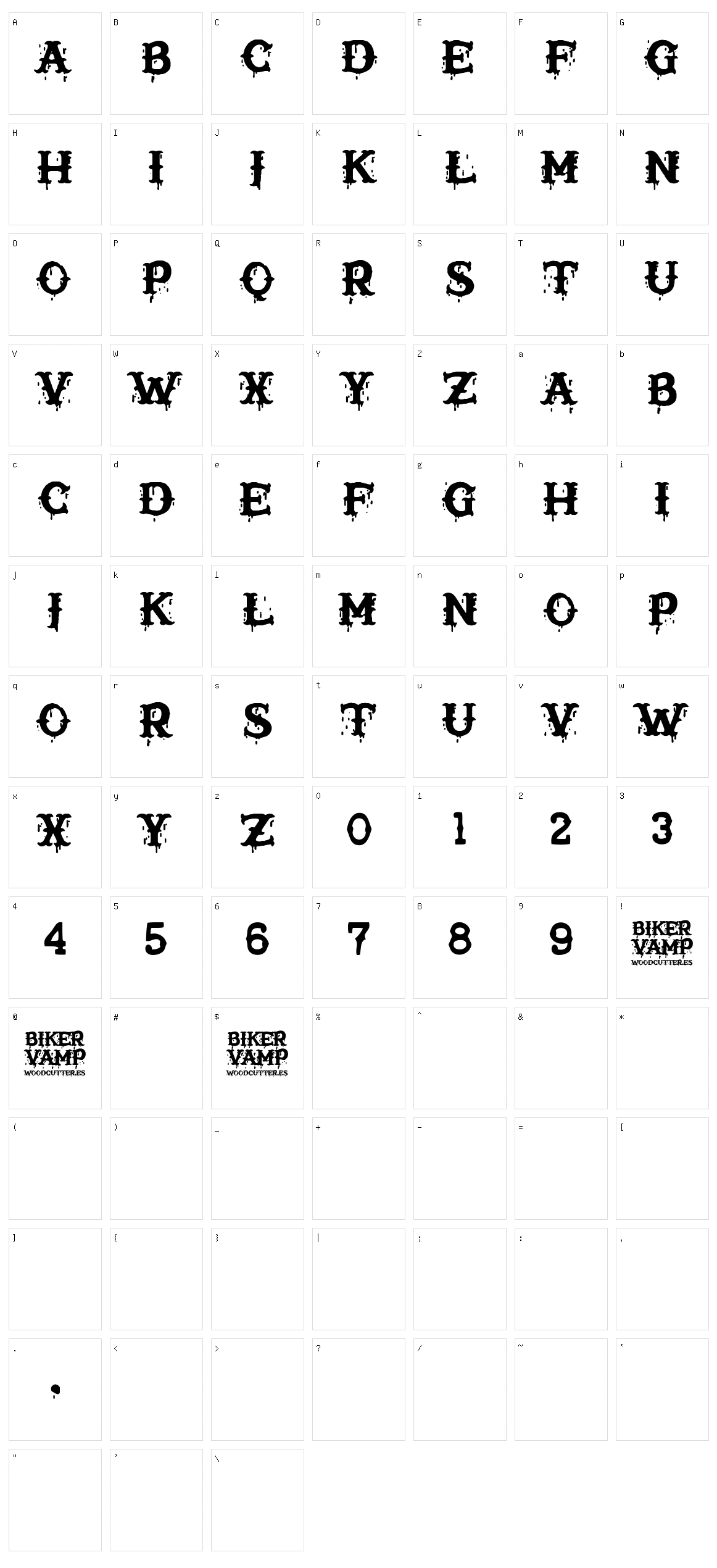
The free font Biker Vamp is carefully designed by Woodcutter, showcasing a thoughtful balance of creativity and usability and falls under the Horror font style. When you download the ZIP file, it contains only 119.37 KB of font files, making it lightweight and quick to download. Please review the license details below to understand permitted usage and distribution rights. If license information is not available, we recommend using this font for personal projects only or contacting the author directly for commercial usage permissions.